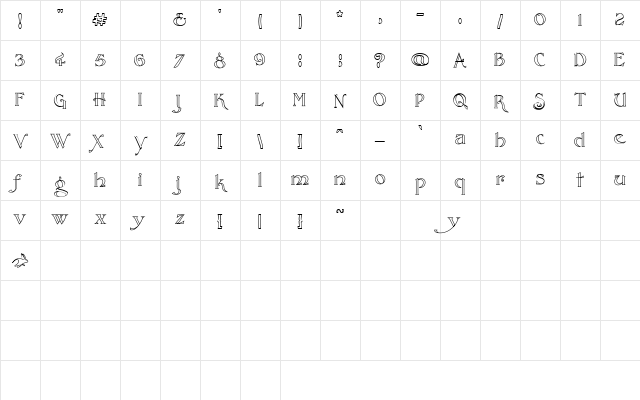
RabbitMoon Open is a composed and adaptable typeface that performs quietly and consistently across a wide range of design contexts.
Pro Tip: Use RabbitMoon Open in both headline and body roles to test its range before committing to a single application.